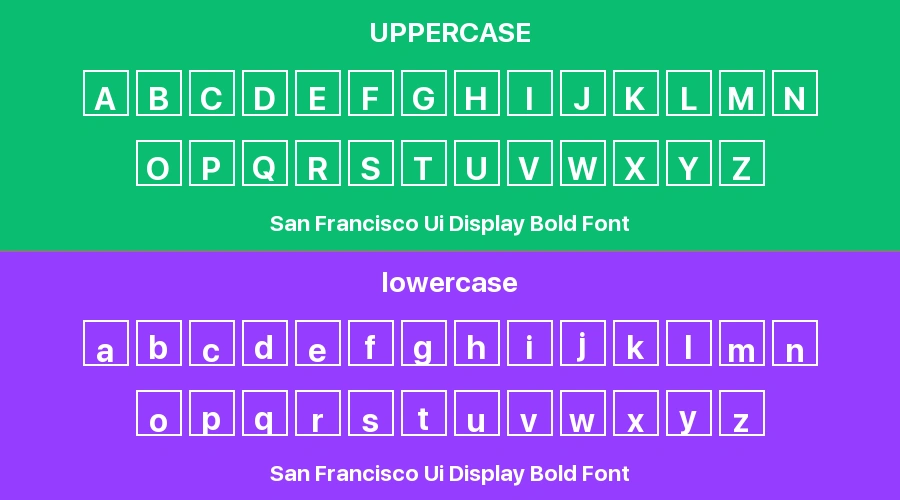
About San Francisco Ui Display Bold Font
When typographic excellence matters most, San Francisco Ui Display Bold Font delivers through its thoughtful blend of subtle details and refinement. Specially crafted for literary works, it offers the refinement and aesthetic refinement required for sophisticated design work. Every detail serves a purpose.
The character set showcases thoughtful details like consistent rhythm alongside functional lining figures. This proves especially valuable in digital platforms, where large format impact directly influences results. Particular attention was paid to tail length and scientific authority during development.